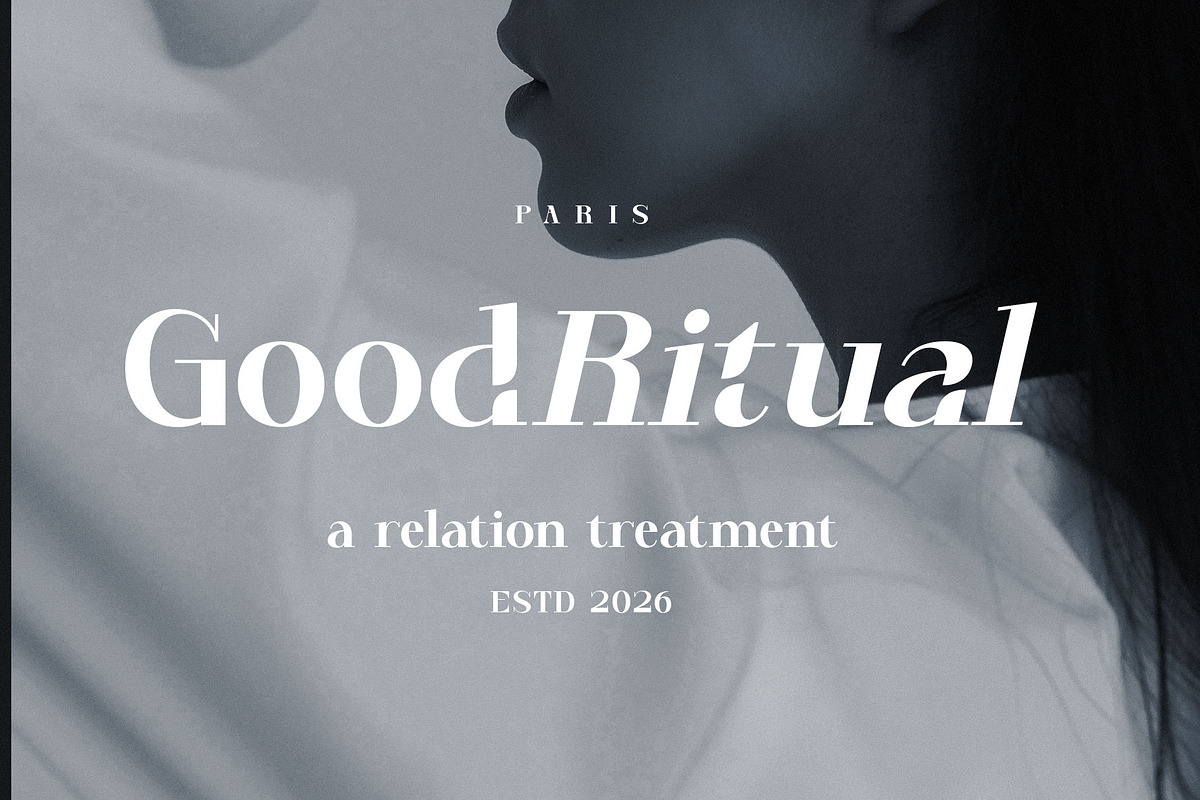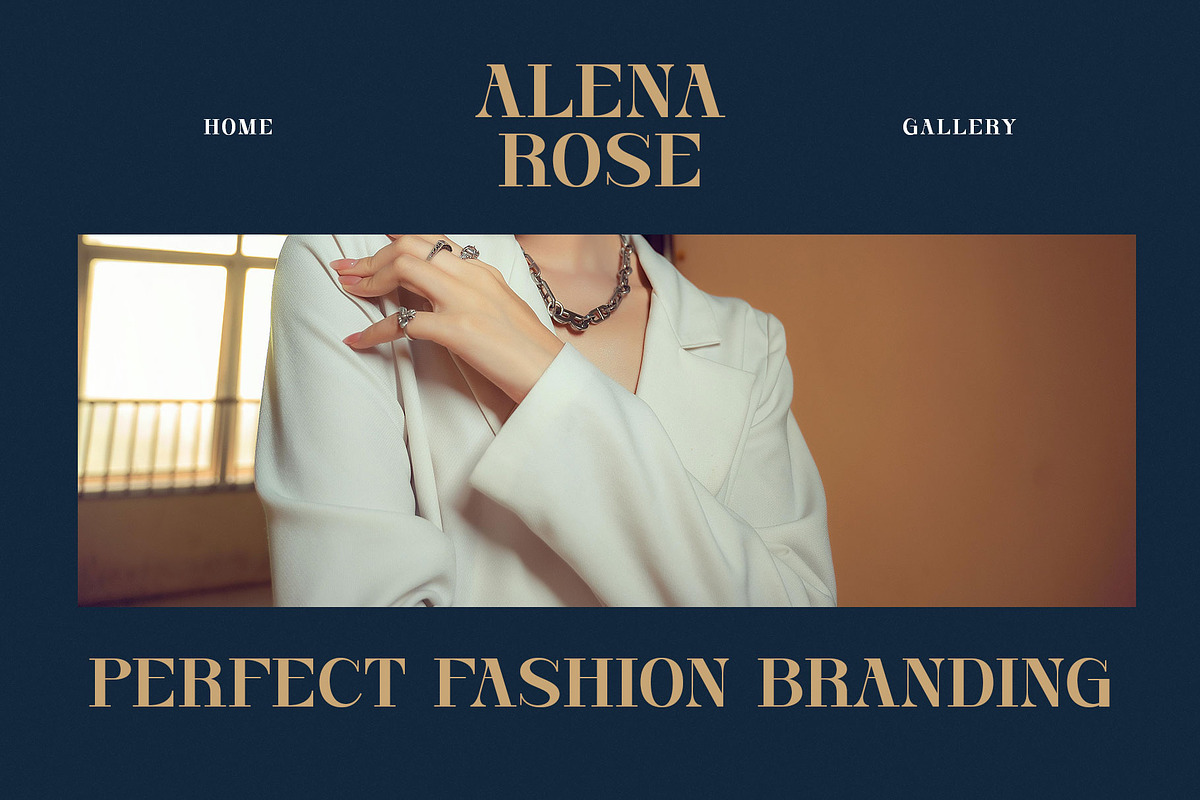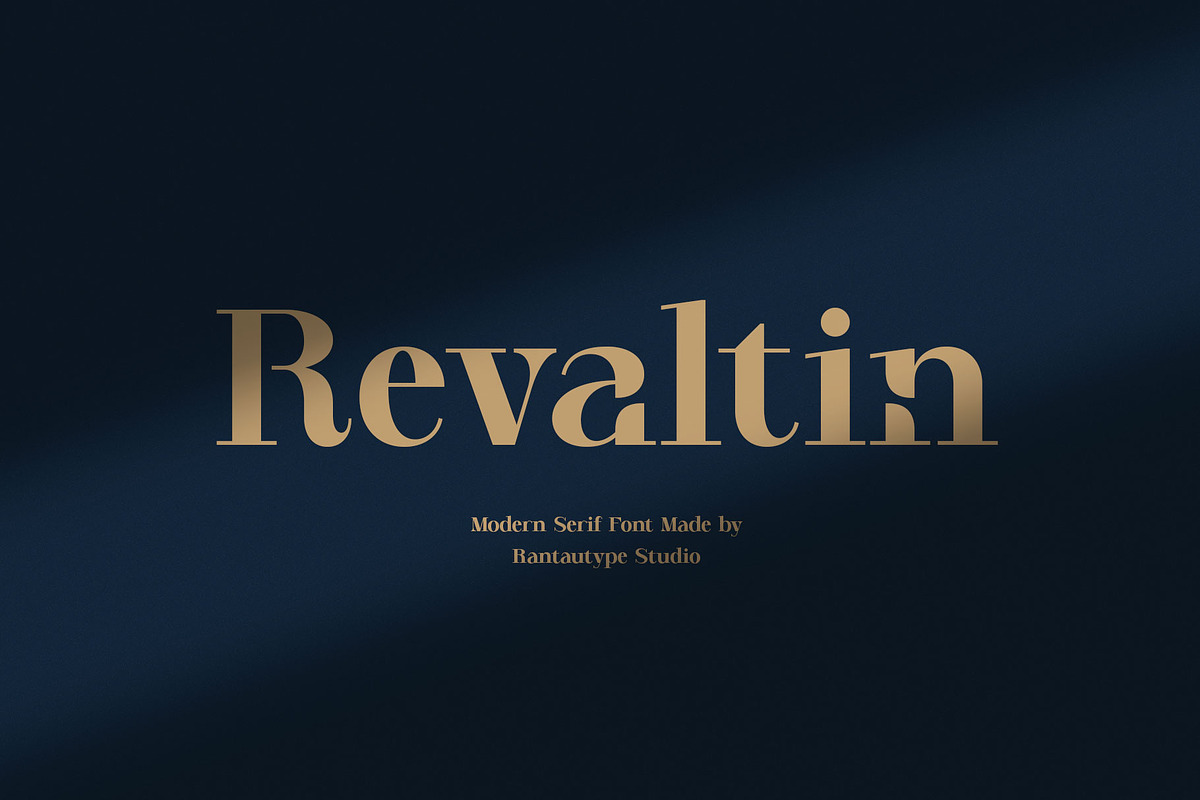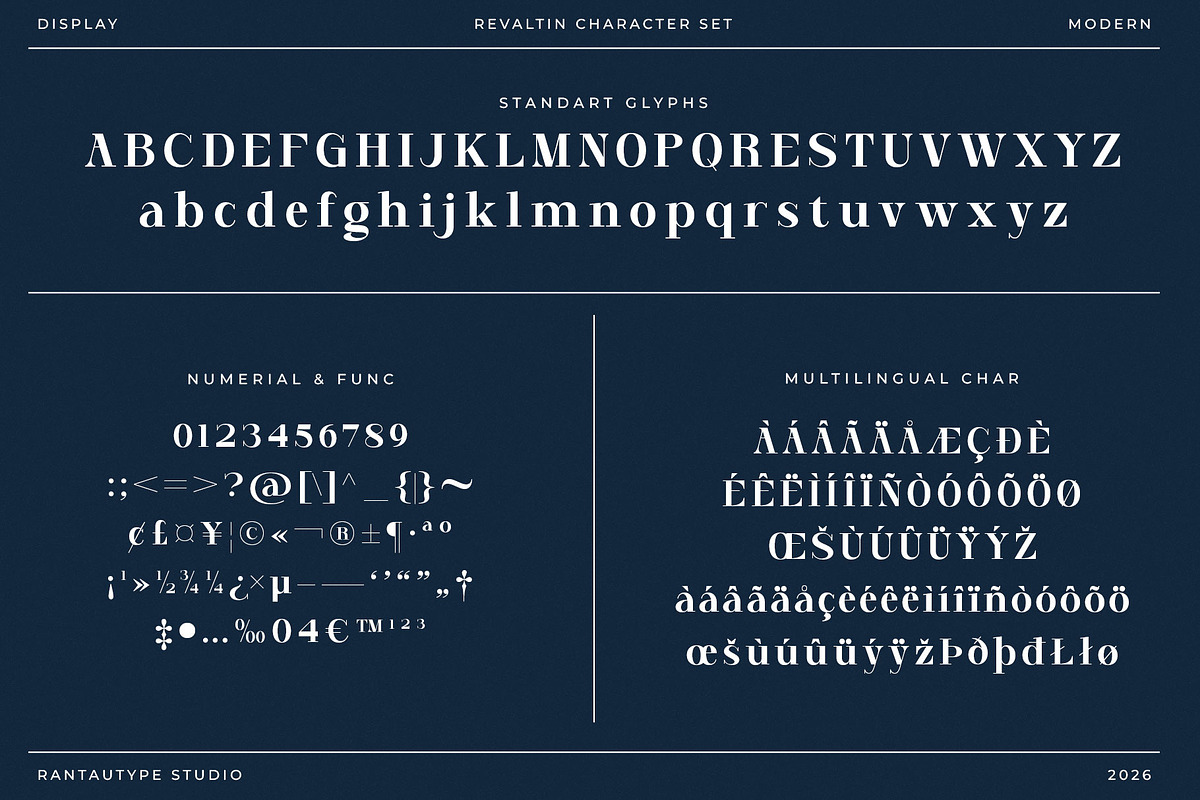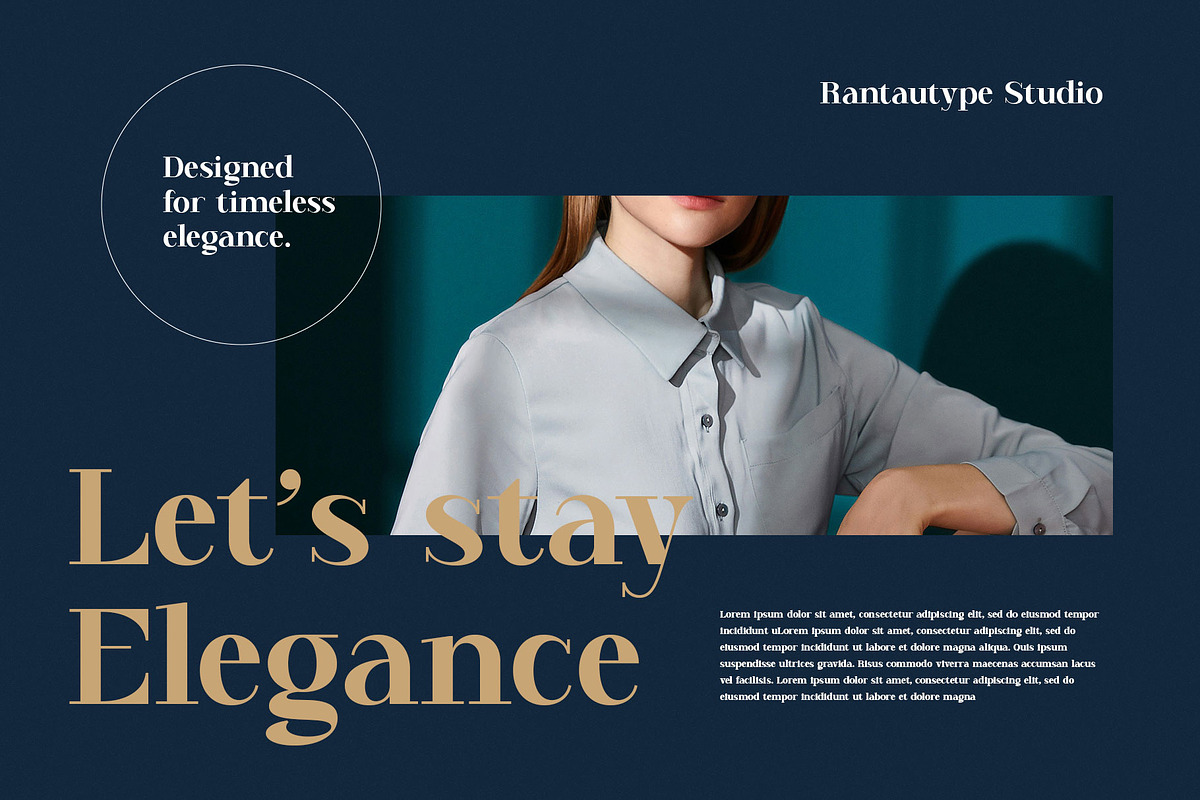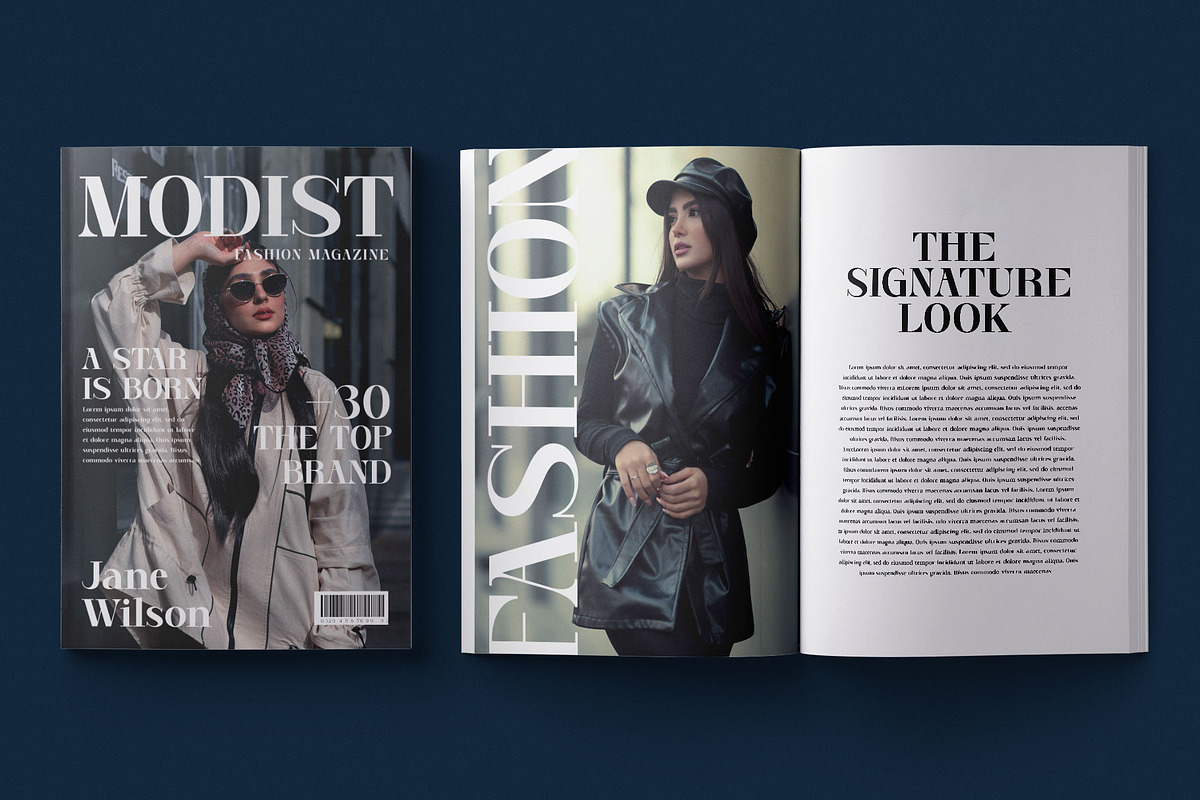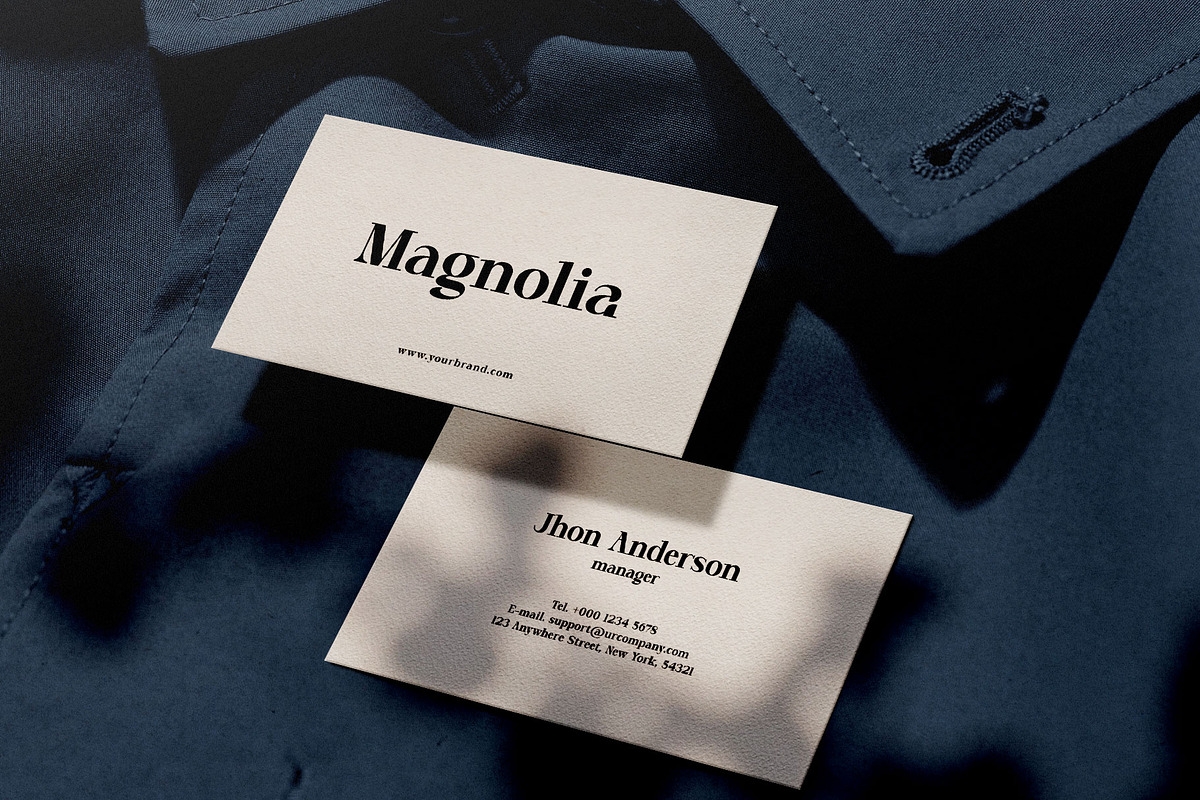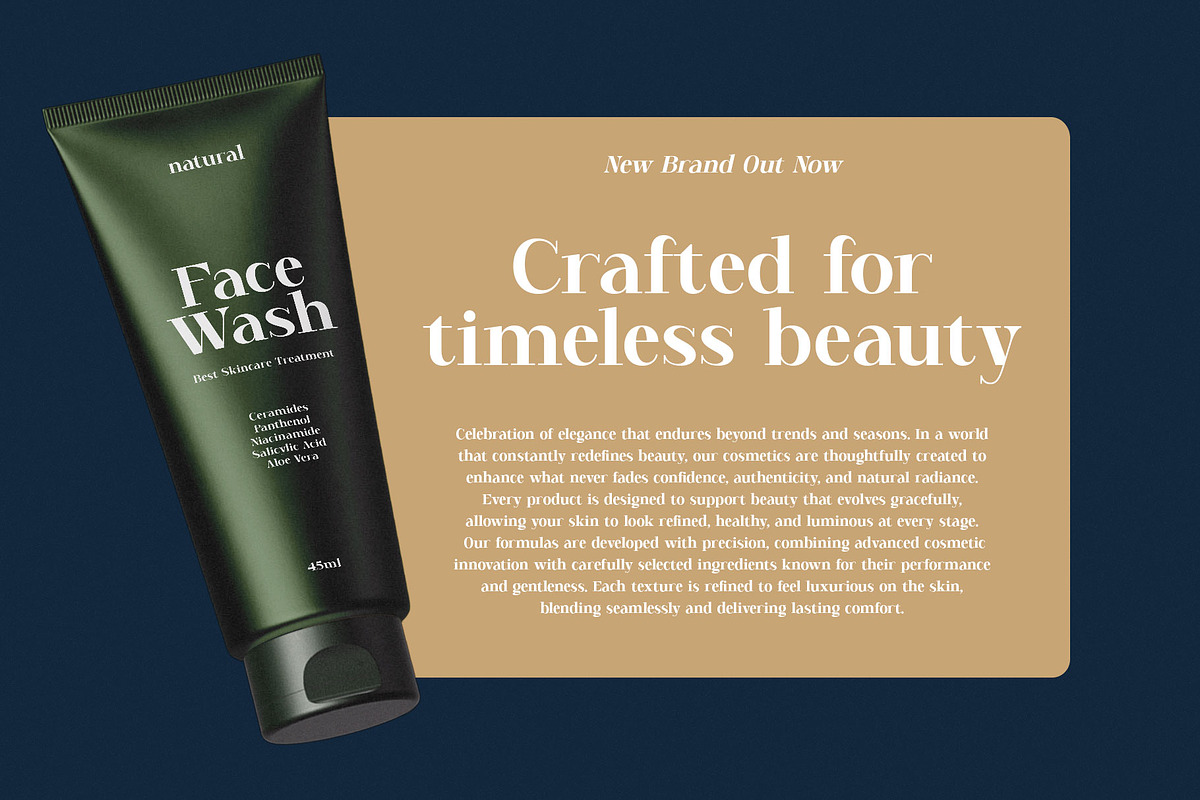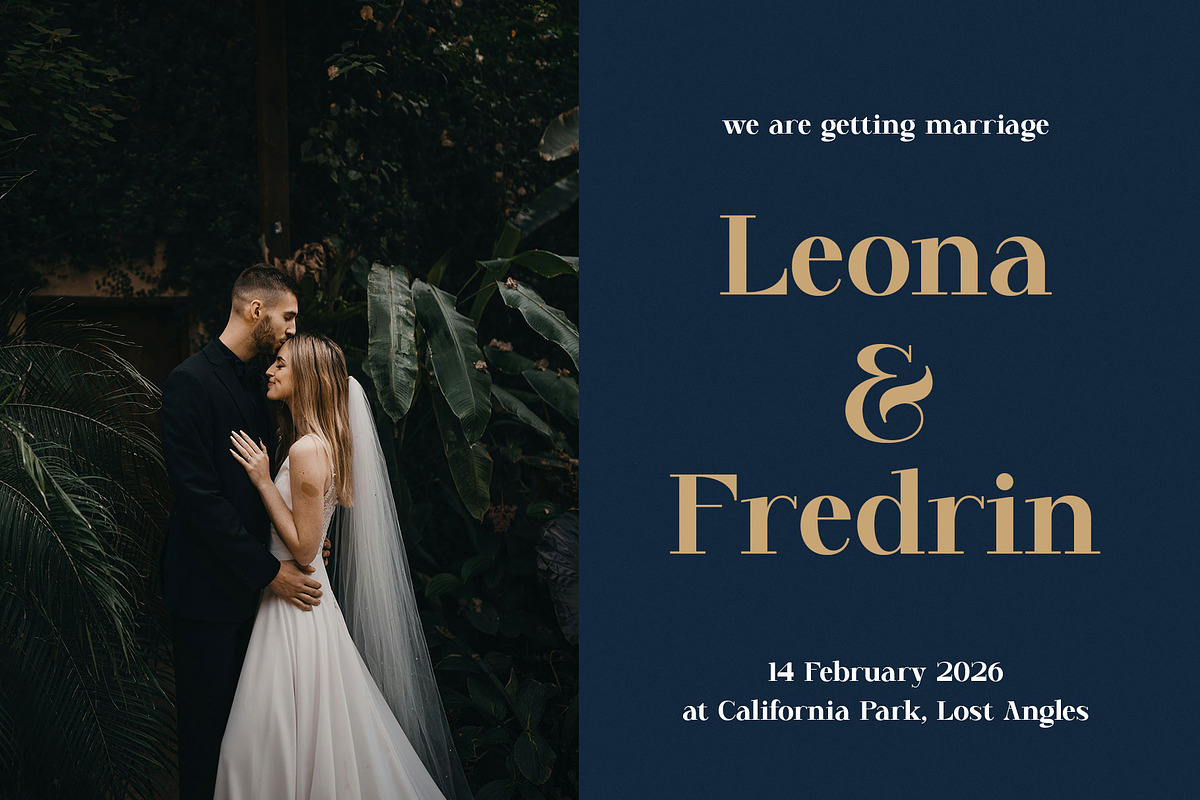
Revaltin Modern Serif Font
Revaltin is modern serif font create with professional by Rantautype Studio. Revaltin bring sophistication, clarity, and personality into today’s visual world. Revaltin is a perfectly choice for any creative endeavor, creating, modern, lifestyle design such as logotype, title, cover, branding, invitations, wedding designs, display and magazine, social media posts, advertisements, printed quotes, product packaging, corporate brand, product designs, labels, photography, watermarks, special events and any other project with modern touch.
- Alternate and ligature